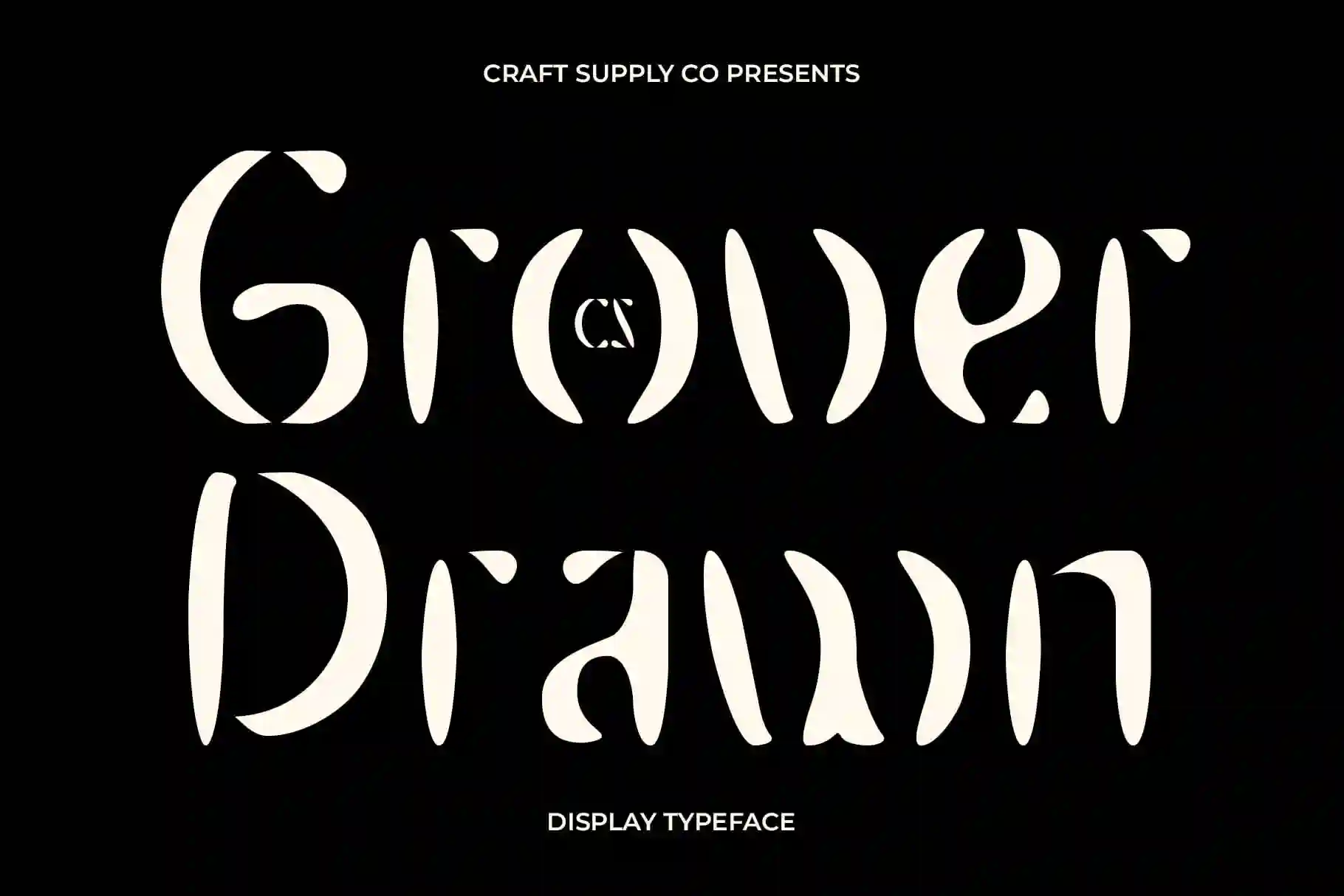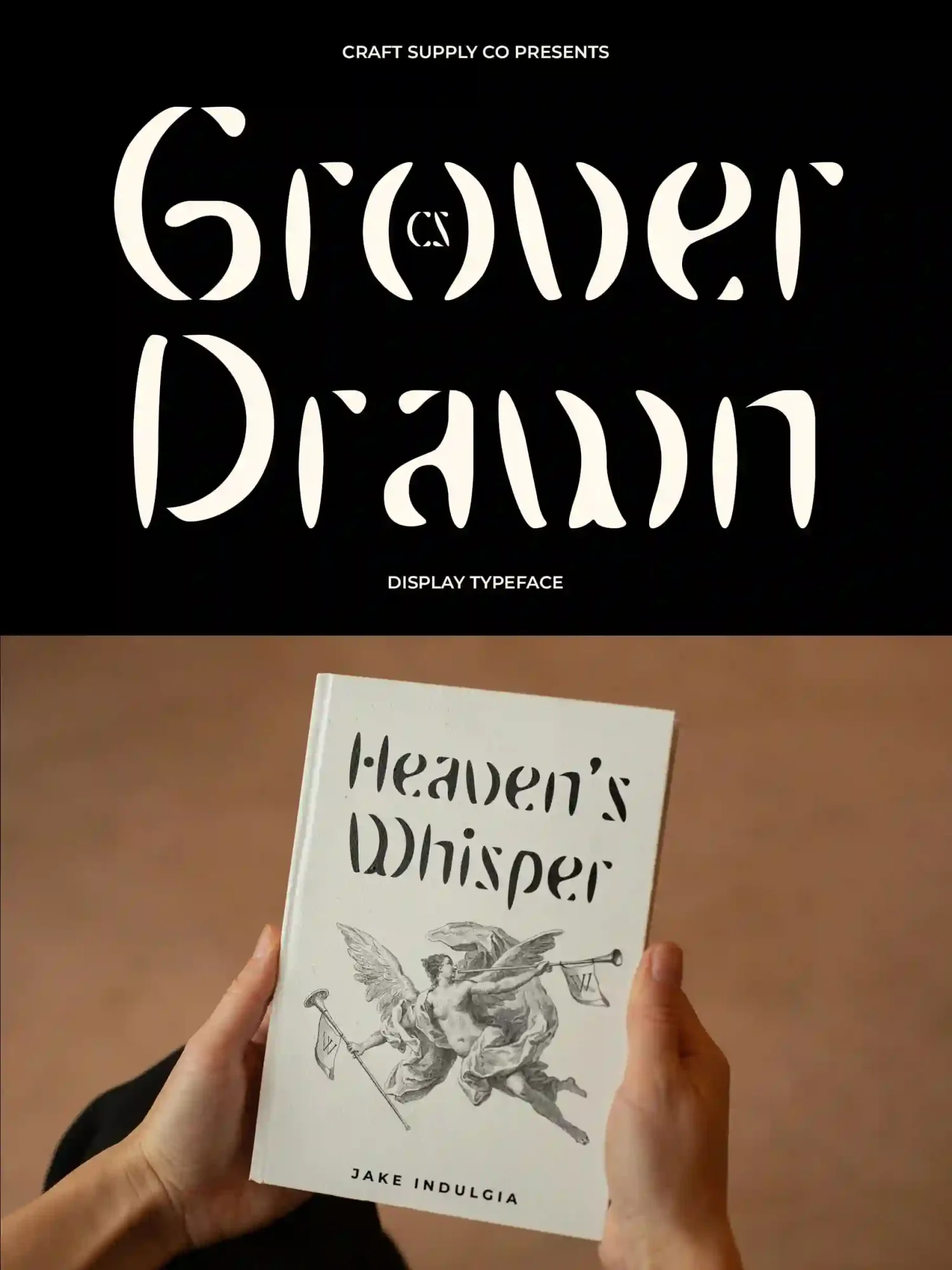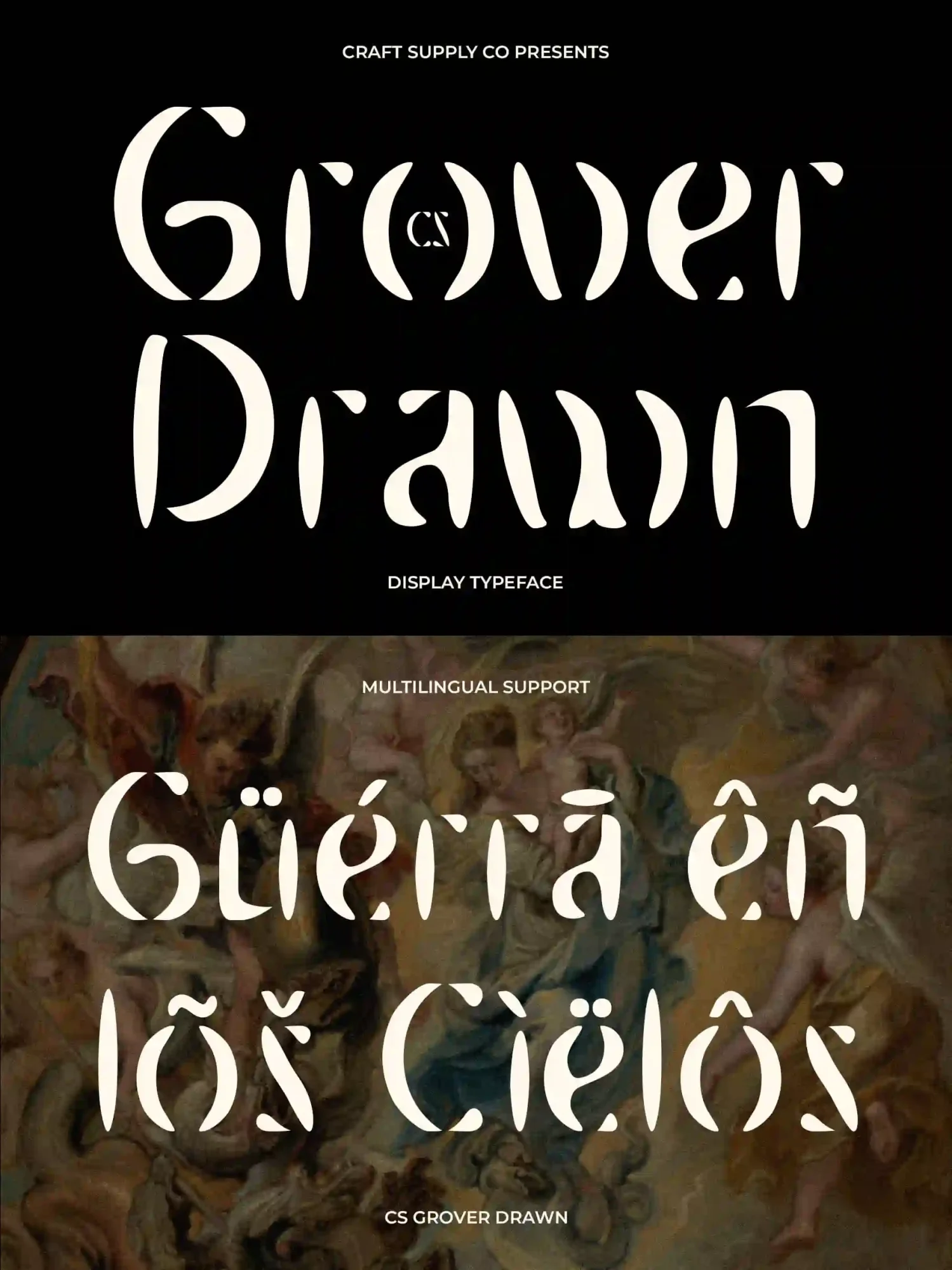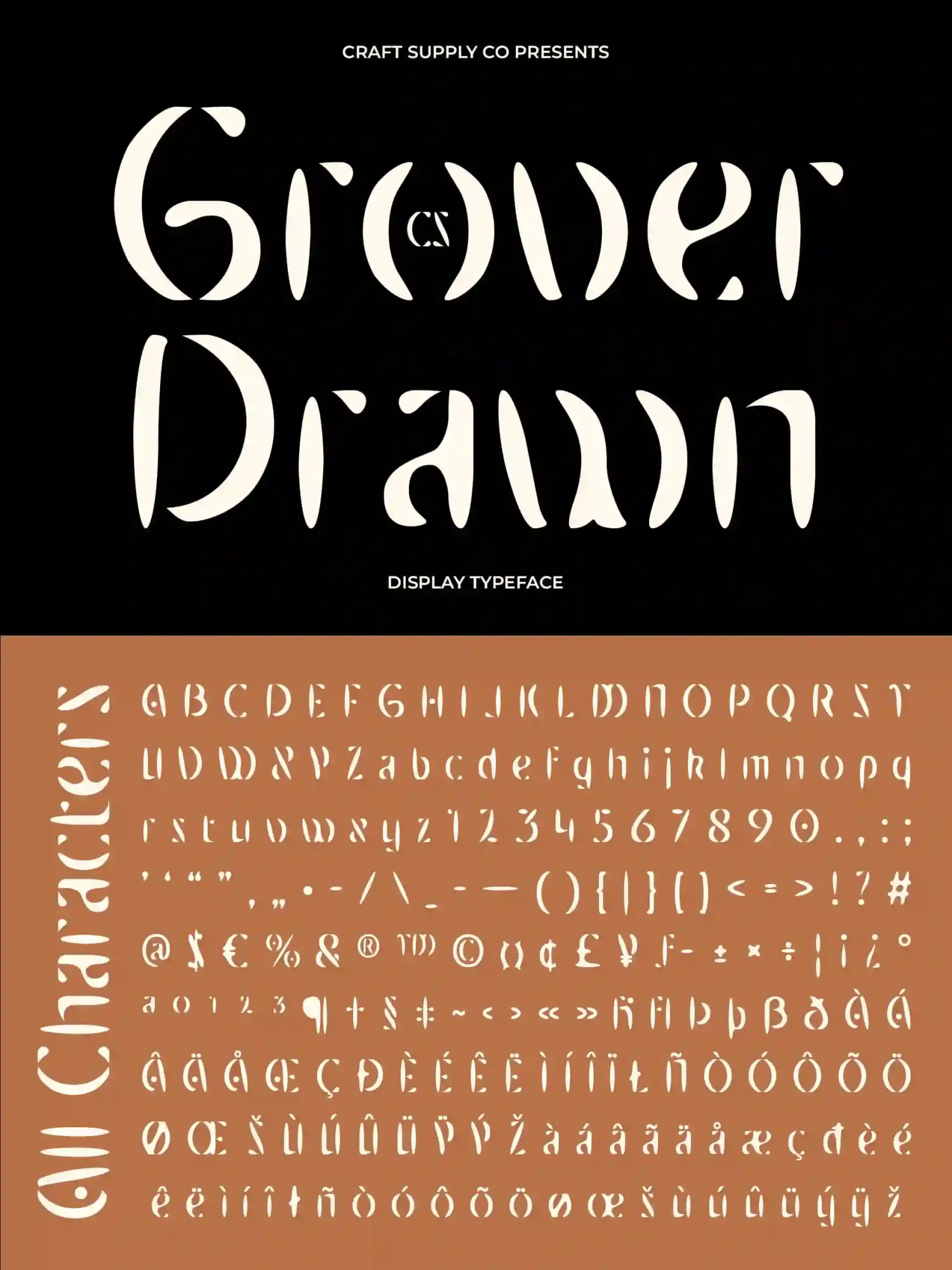
CS Grover Drawn
CS Grover Drawn – Artistic Display Font with Decorative and Drawn Flair
Modern Structure Meets Handcrafted Expression
This is a modern display font that fuses bold decorative forms with a hand-drawn texture, resulting in a look that’s both sophisticated and organic. The font’s unique letterforms are enriched with ornamental curves and sketch-like details, bringing a sense of artistic spontaneity and creative individuality.
A Handmade Look with High Visual Impact
While rooted in a clean and contemporary structure, each letter is imbued with drawn irregularities and textured strokes, evoking the energy of handcrafted artwork. This gives the font a dynamic, expressive presence, making it feel alive and full of personality.